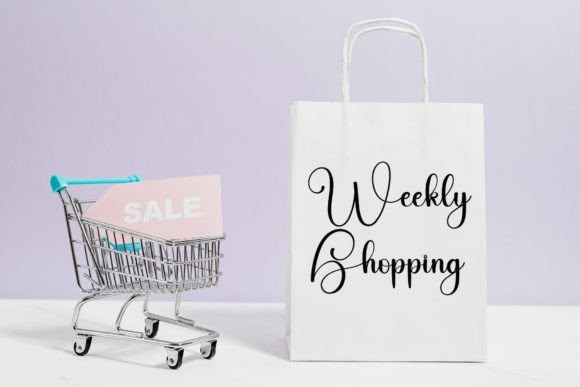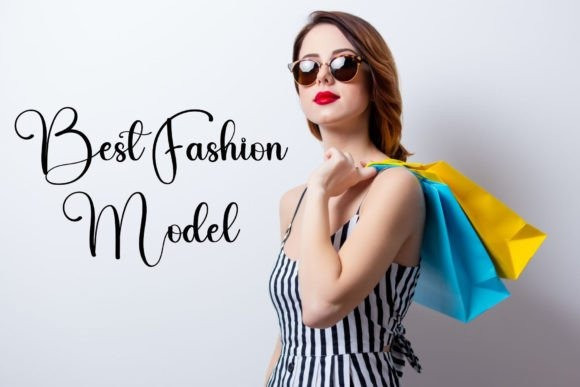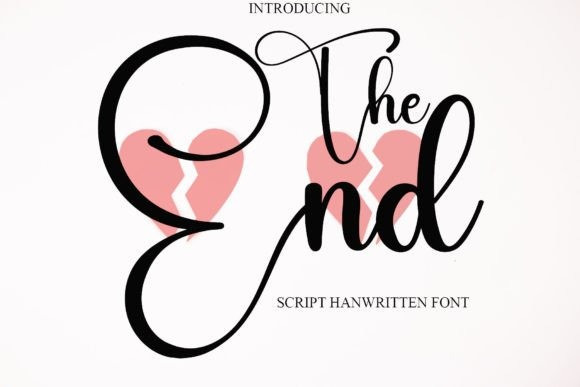
The End Calligraphy Font
The End Calligraphy Font is a sweet and beautiful handwritten font. Featuring characters that dance along the baseline,this font will add a luxury spark to any design project you wish to create!